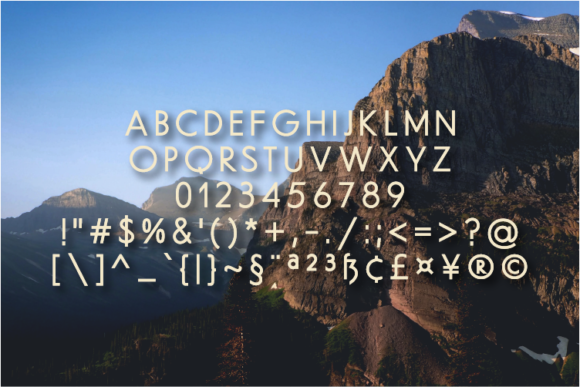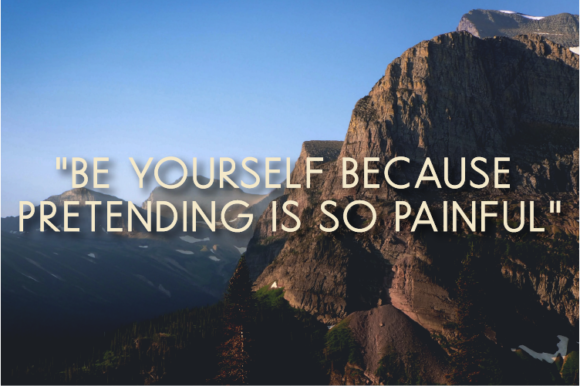
Introducing Duelf Font: Elevate Your Designs with a Modern Sans Serif Typeface
In the world of typography, a font can make or break a design. For designers and crafters looking to add a touch of elegance and modernity to their projects, Duelf Font is an excellent choice. This fancy, contemporary sans serif font is designed to impress, with its neat and beautiful arrangement of letters that will make your designs stand out in both formal and non-formal settings.
What Makes Duelf Font Special?
Duelf Font is not just another typeface; it’s a design statement. Its clean lines and modern aesthetic make it perfect for a wide range of applications, from branding and advertising to packaging and digital media. The font’s sans serif design ensures that your message is conveyed clearly and effectively, without any distractions.
Key Features of Duelf Font
- Contemporary Design: Duelf Font boasts a modern design that will give your projects a fresh and up-to-date look.
- Sans Serif: The clean and simple sans serif design makes it easy to read and versatile for various design applications.
- Neat and Beautiful Arrangement: The letters are arranged in a way that is both aesthetically pleasing and highly legible.
- Formal and Non-Formal Designs: Whether you’re working on a corporate project or a more creative endeavor, Duelf Font adapts seamlessly to any design style.
Use Cases for Duelf Font
The versatility of Duelf Font makes it suitable for a myriad of design projects. Here are some use cases where Duelf Font truly shines:
- Branding and Logotypes: Create a lasting impression with a unique and memorable brand identity.
- Digital Media: Enhance your website, social media posts, and digital advertisements with a modern and engaging typeface.
- Packaging: Stand out on store shelves with eye-catching packaging designs.
- Advertising: Capture attention and convey your message effectively in print and digital ads.
- Invitations and Stationery: Add a touch of elegance to your formal and informal invitations, business cards, and letterheads.
Tips for Using Duelf Font Effectively
To maximize the impact of Duelf Font in your designs, consider the following tips:
- Pair with Complementary Fonts: Combine Duelf Font with serif fonts for a classic look or with script fonts for a more creative vibe.
- Experiment with Sizes and Weights: Play with different sizes and weights to create visual hierarchy and emphasize key messages.
- Pay Attention to Spacing: Ensure adequate spacing between letters and lines for optimal readability.
- Use in Headers and Titles: Utilize Duelf Font for headers and titles to draw attention and add a professional touch.
Duelf Font is a powerful tool for designers and crafters looking to elevate their projects with a modern and elegant typeface. Its versatility, readability, and aesthetic appeal make it an excellent choice for a wide range of design applications. By incorporating Duelf Font into your design repertoire, you’ll be able to create stunning and effective designs that leave a lasting impression.